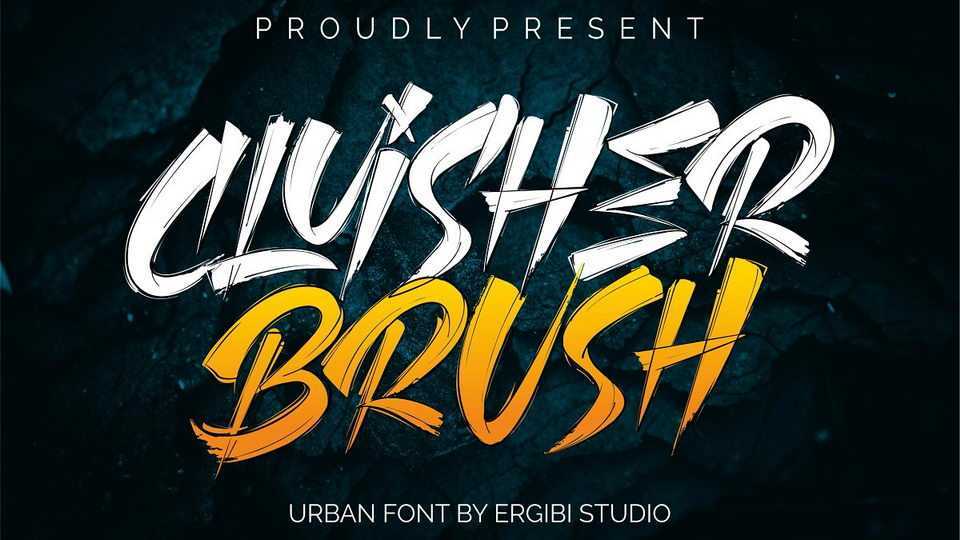
Download Cluisher Brush font, a hand painted brush typeface with bold and strong character. Cluisher Brush is ideal for logos, apparel,T-shirt, Hoodie, graffiti,quotes, product packaging, or anything which needs a typographic turbo-boost.
Designer: Ergibi Studio